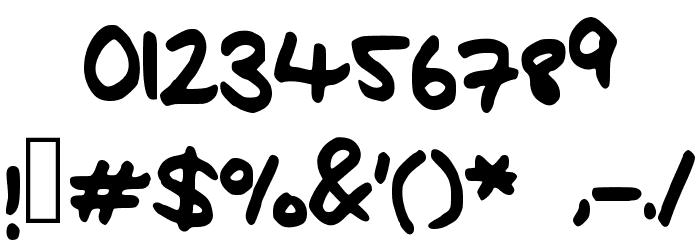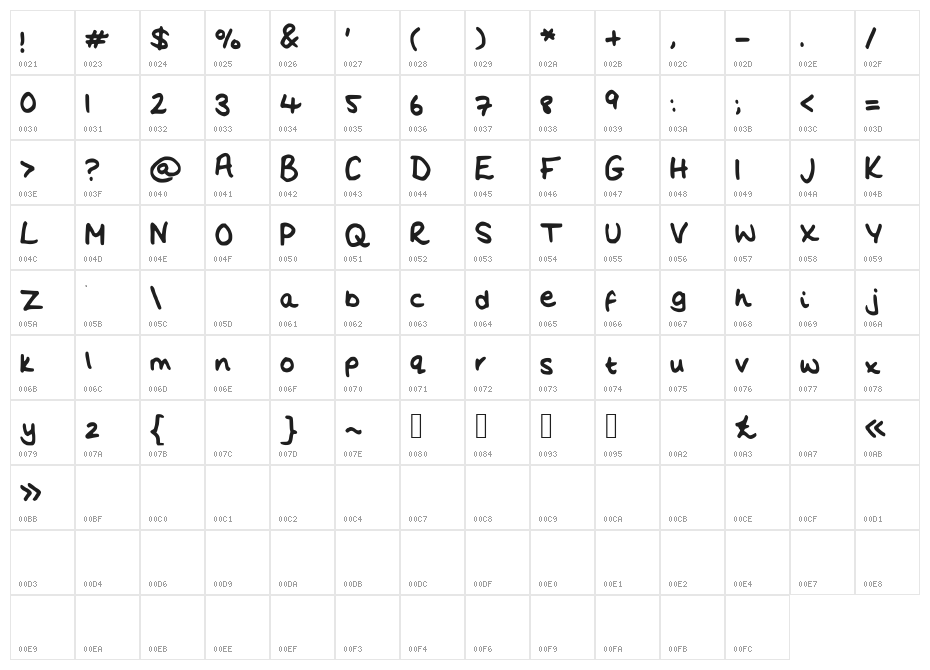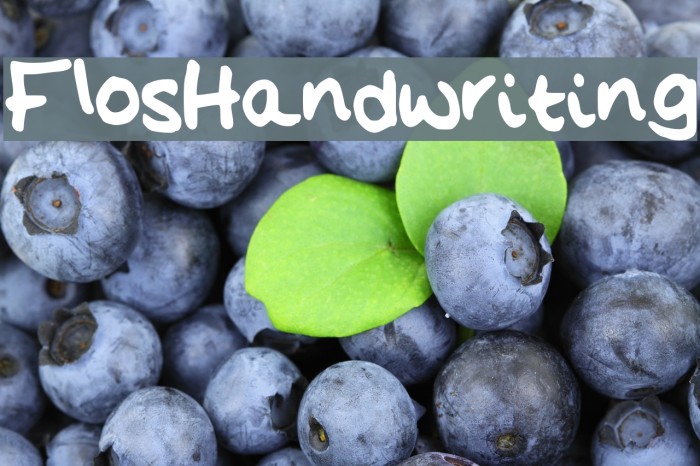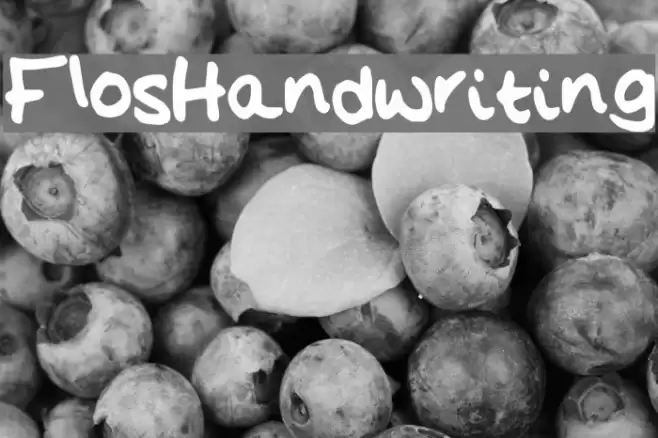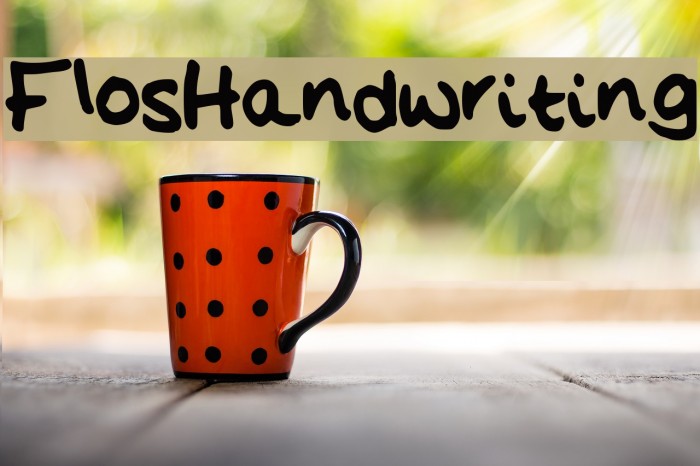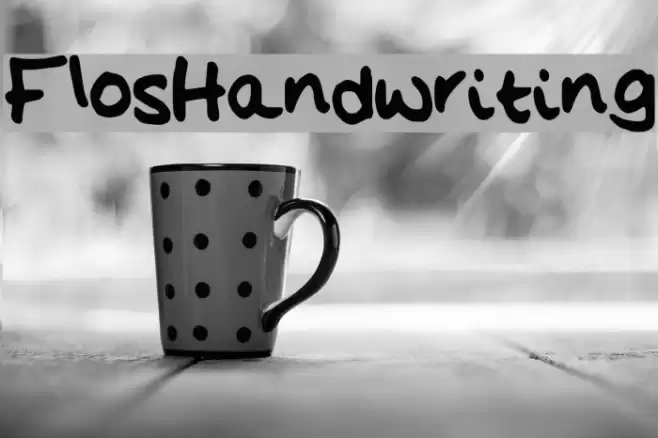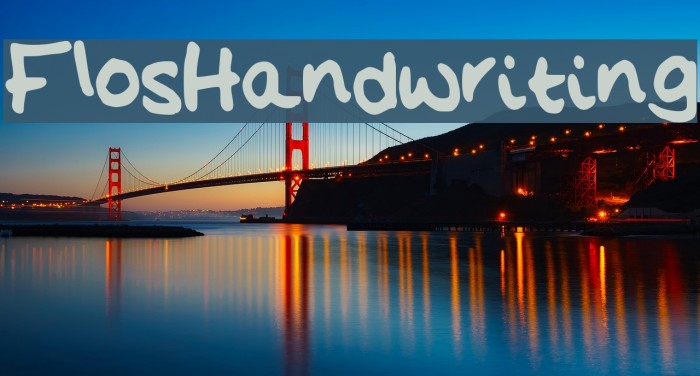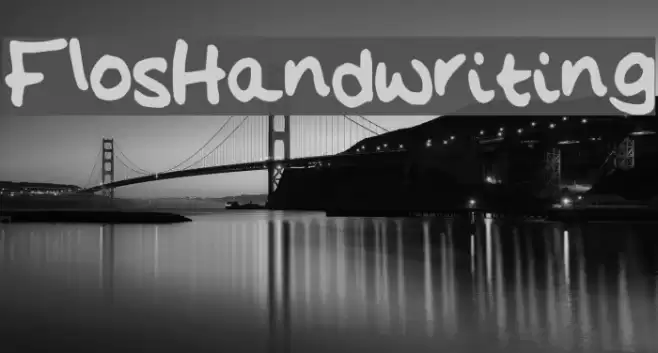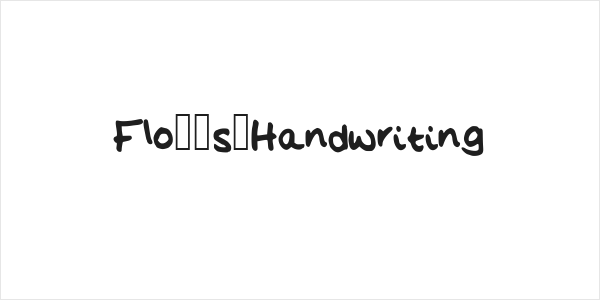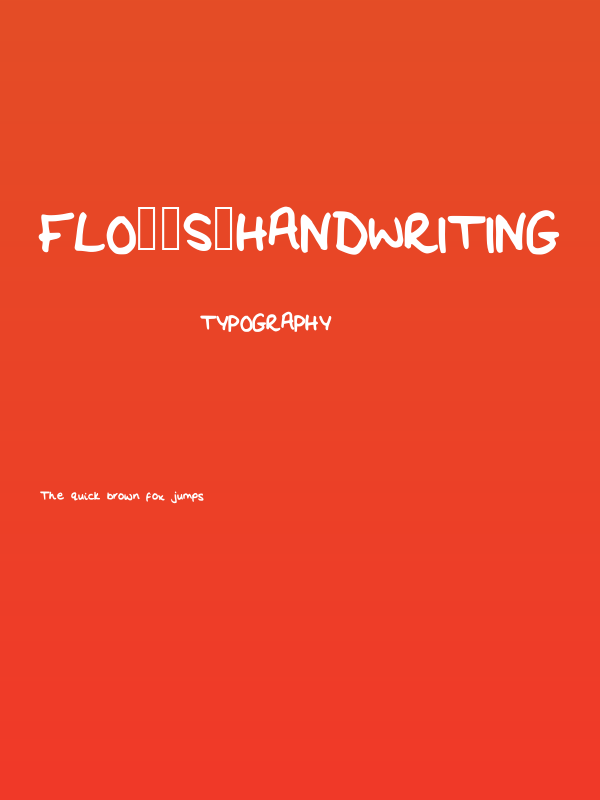
Flo__s_Handwriting Font
Flo__s_Handwriting Description
This font exudes a playful and casual handwritten style, characterized by its rounded and slightly irregular letterforms. The strokes are bold and consistent, giving it a friendly and approachable appearance. Each character has a unique flair, with some letters featuring subtle curves and others maintaining a more straightforward structure. The numbers and special characters follow the same playful aesthetic, ensuring a cohesive look across all text. This font is perfect for projects that require a personal touch, such as invitations, greeting cards, or children's books. Its legibility and charm make it suitable for both digital and print media.
| Proposed Projects | Ideal for invitations, greeting cards, children's books, and playful branding. |